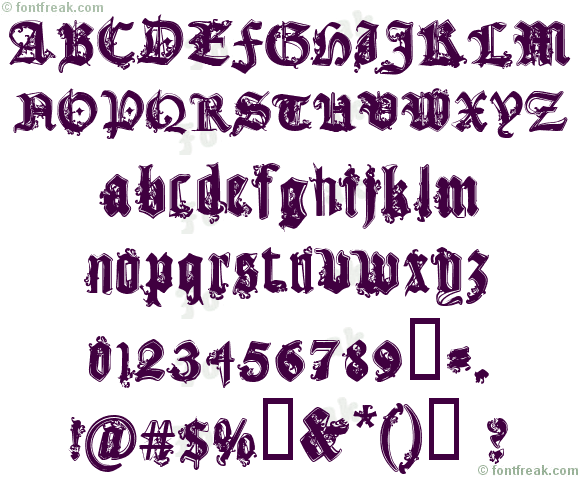
CF Gothika Regular
CF Gothika Regular, created by Cloutierfontes, is a striking display font that falls within the decorative category. This font is characterized by its unique combination of gothic influences and modern flair, making it perfect for projects that require a bold statement. The stroke weight varies, providing visual interest and depth, while the contrast between the thick and thin lines enhances its dramatic presence. Decorative elements, including intricate serifs and flourishes, give the font a distinctive and elaborate appearance, setting it apart from more conventional typefaces.
This font is ideal for a variety of creative applications. Its theatrical style makes it a fantastic choice for movie posters, where it can evoke a sense of mystery or drama. Wedding invitations can benefit from its elegant yet unconventional flair, adding a touch of uniqueness to the special day. Additionally, restaurant menus that wish to convey a certain ambiance, especially for themed dining experiences, can use CF Gothika Regular to great effect. Content creators looking to enhance their branding or social media graphics will also find this font advantageous due to its eye-catching aesthetics.
What truly makes CF Gothika Regular stand out is its ability to blend the heritage of gothic typography with contemporary design principles. This unique fusion provides an opportunity for users to create memorable visuals that resonate with their audience, ensuring that their work is both impactful and visually stunning. For those interested, the CF Gothika Regular font free download is readily available, inviting creativity and innovation.